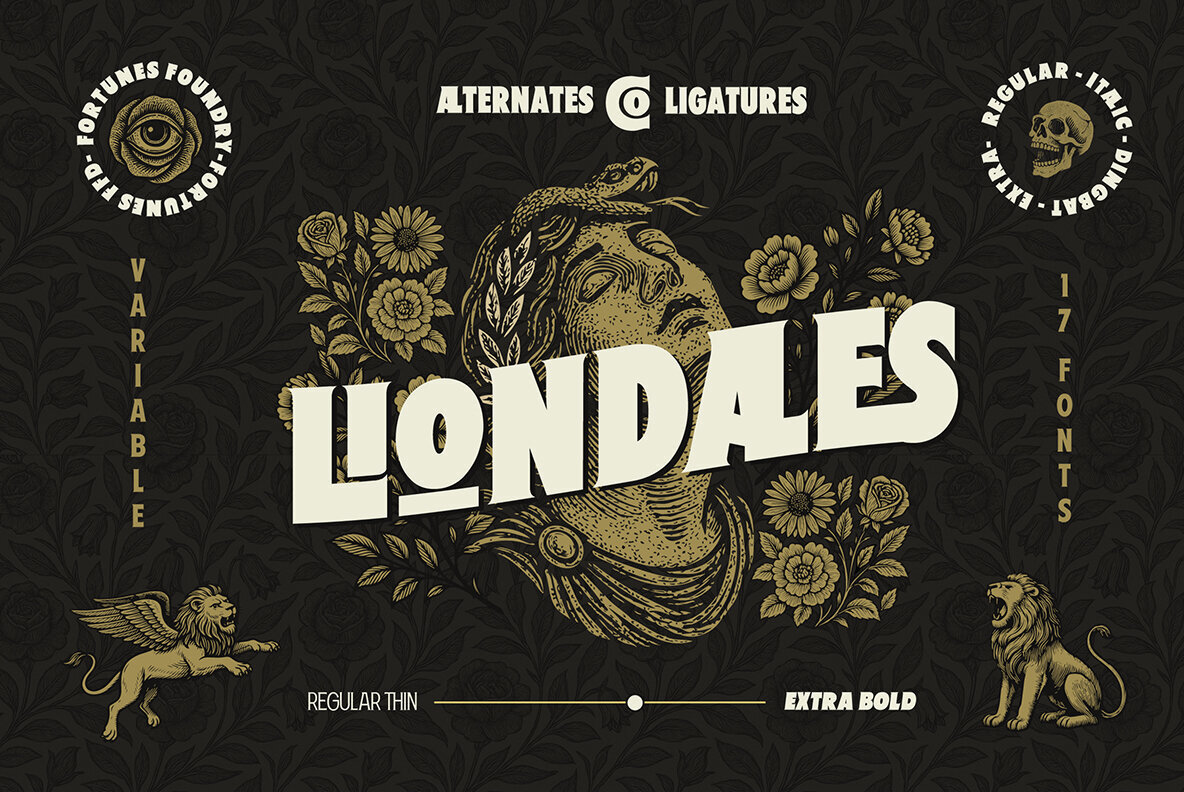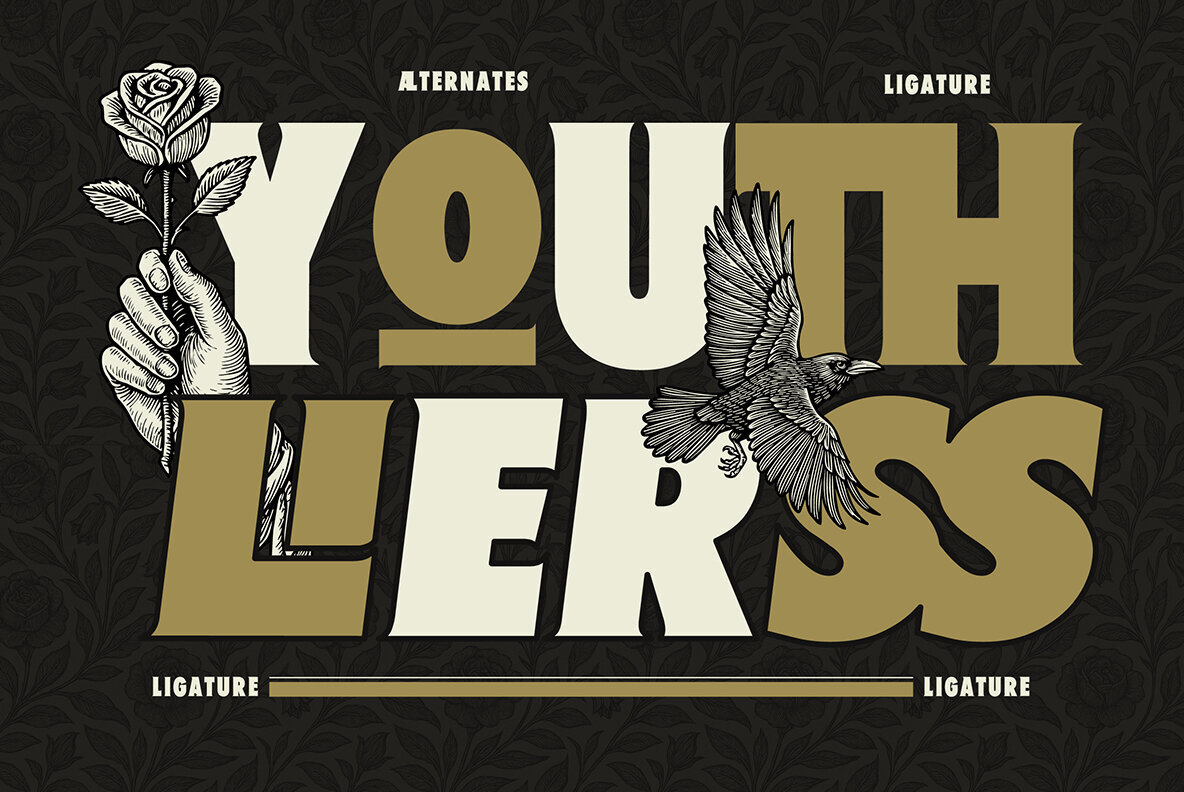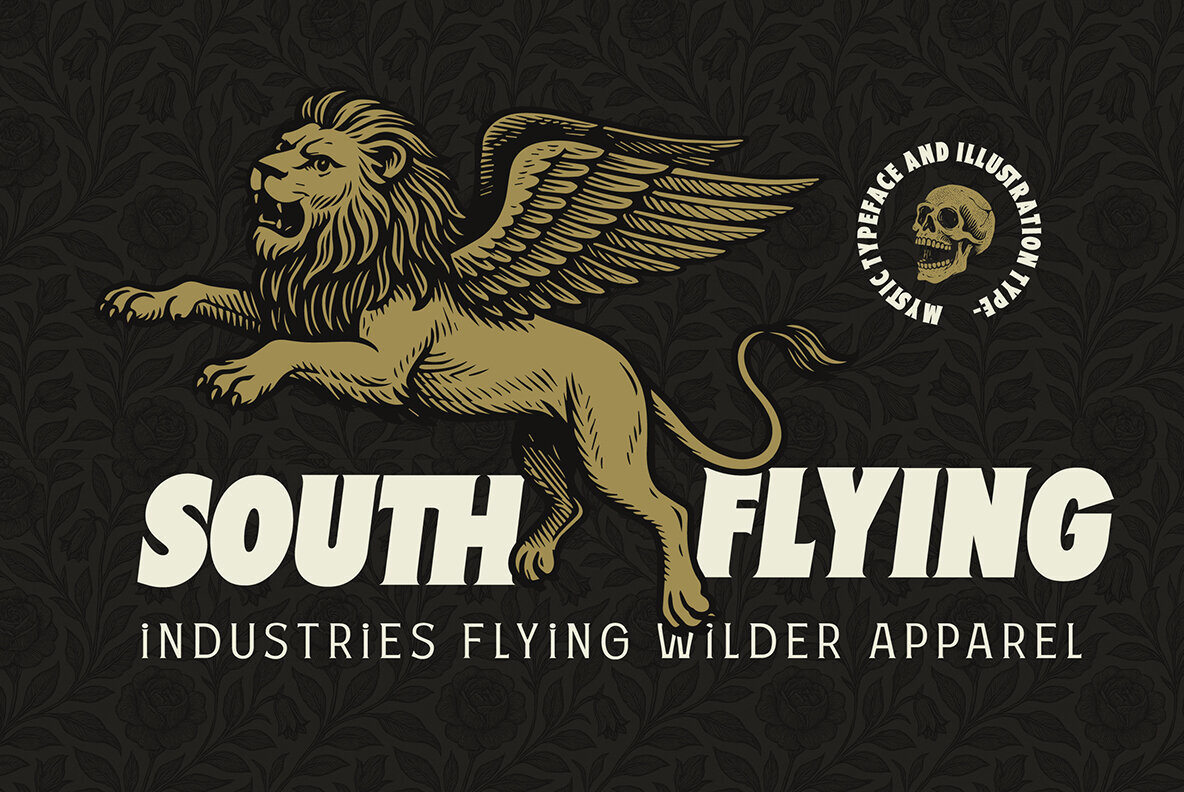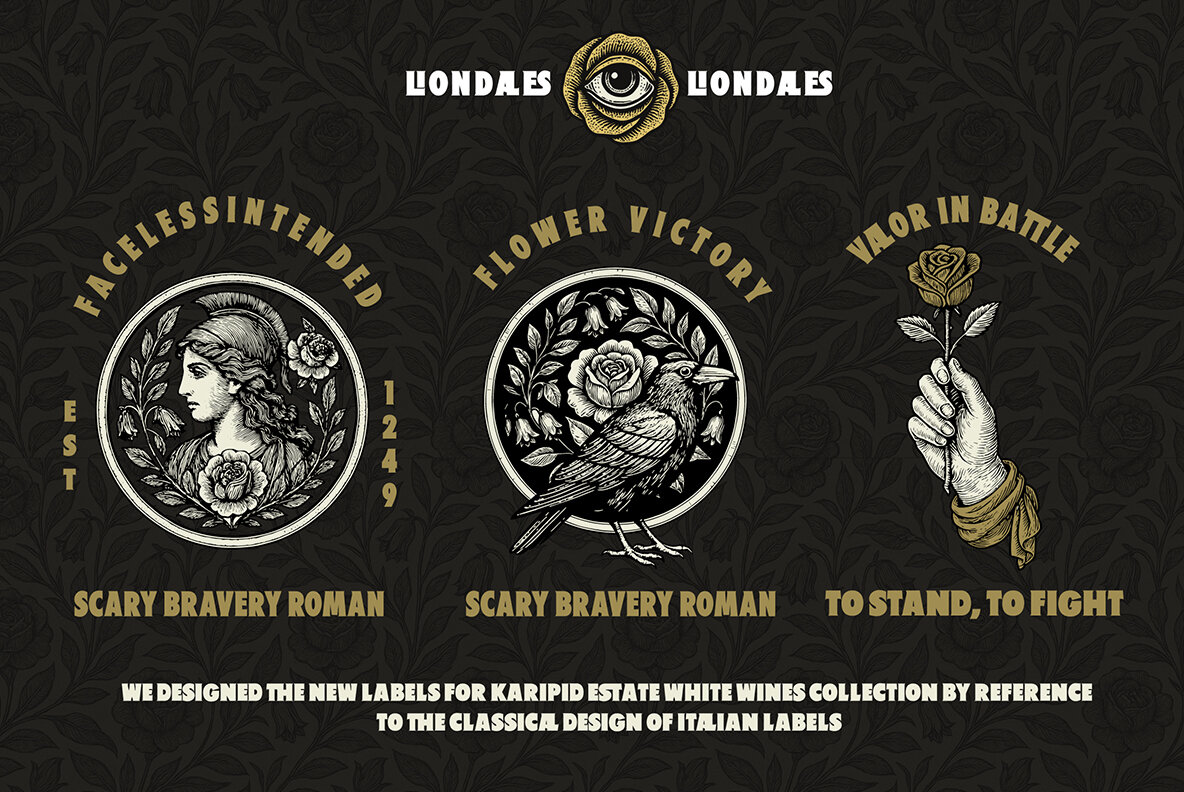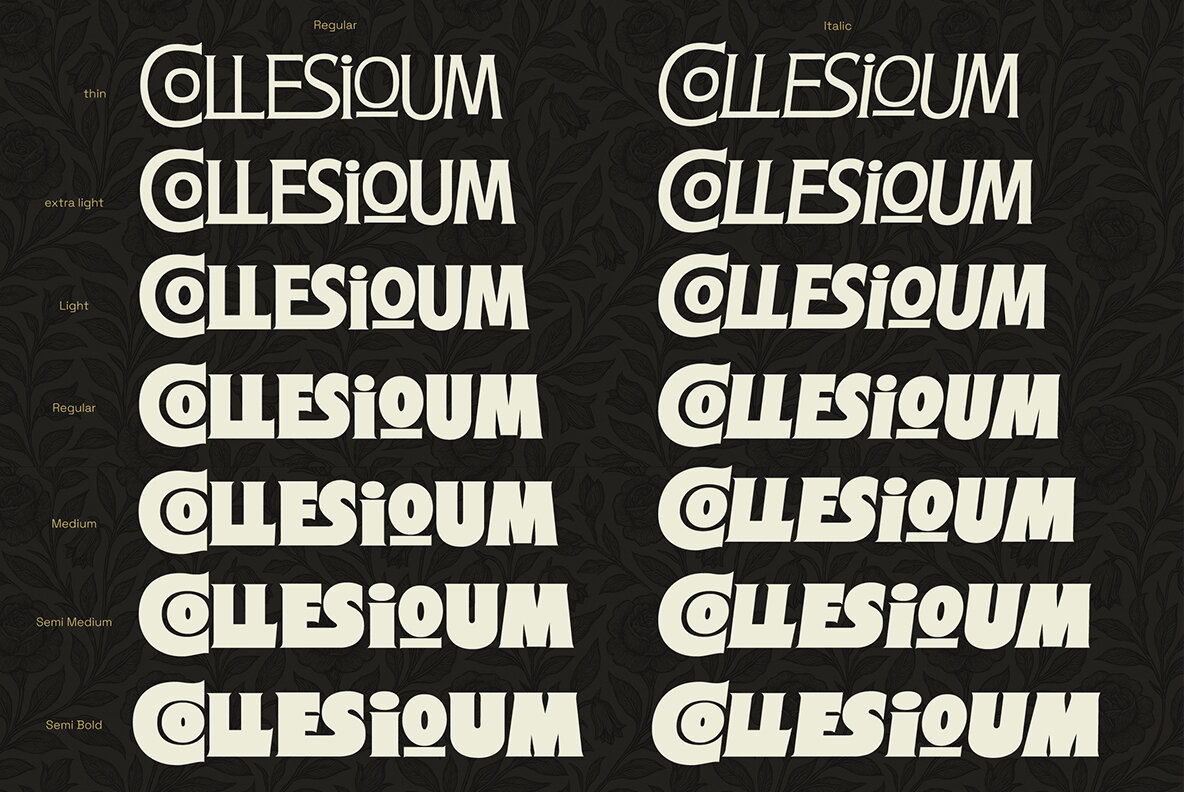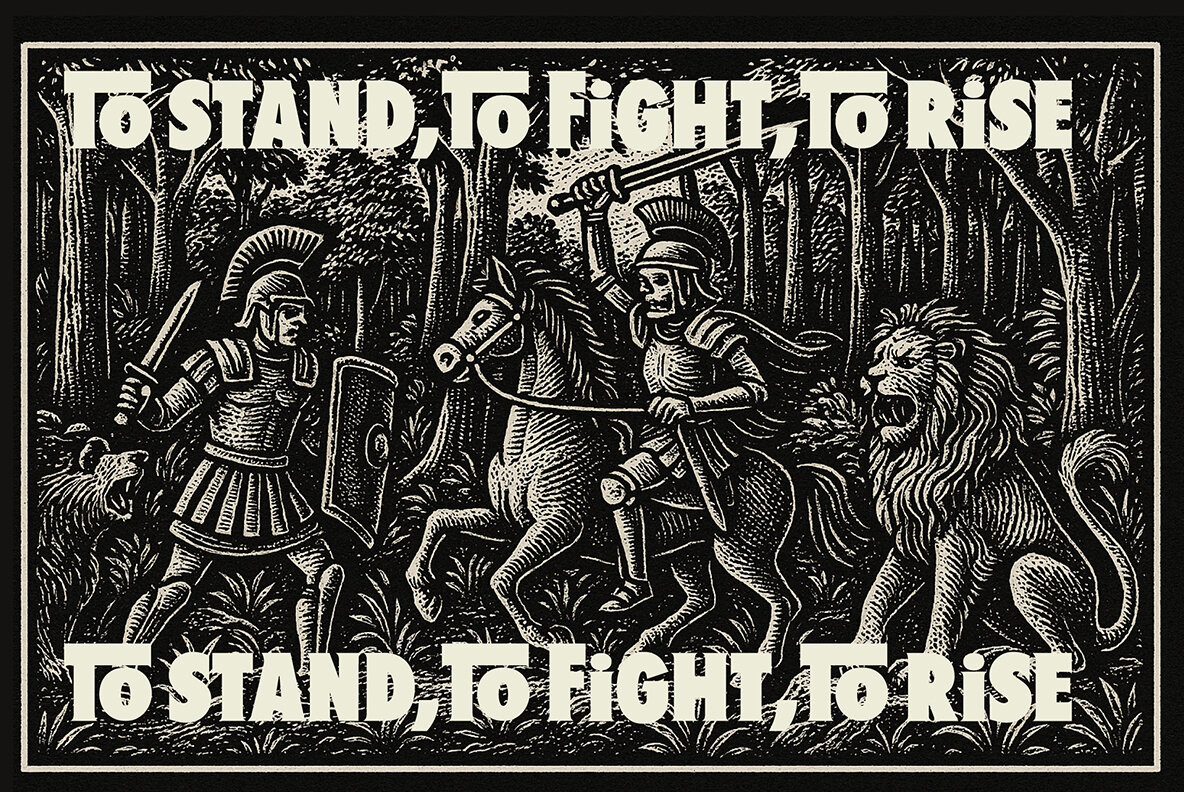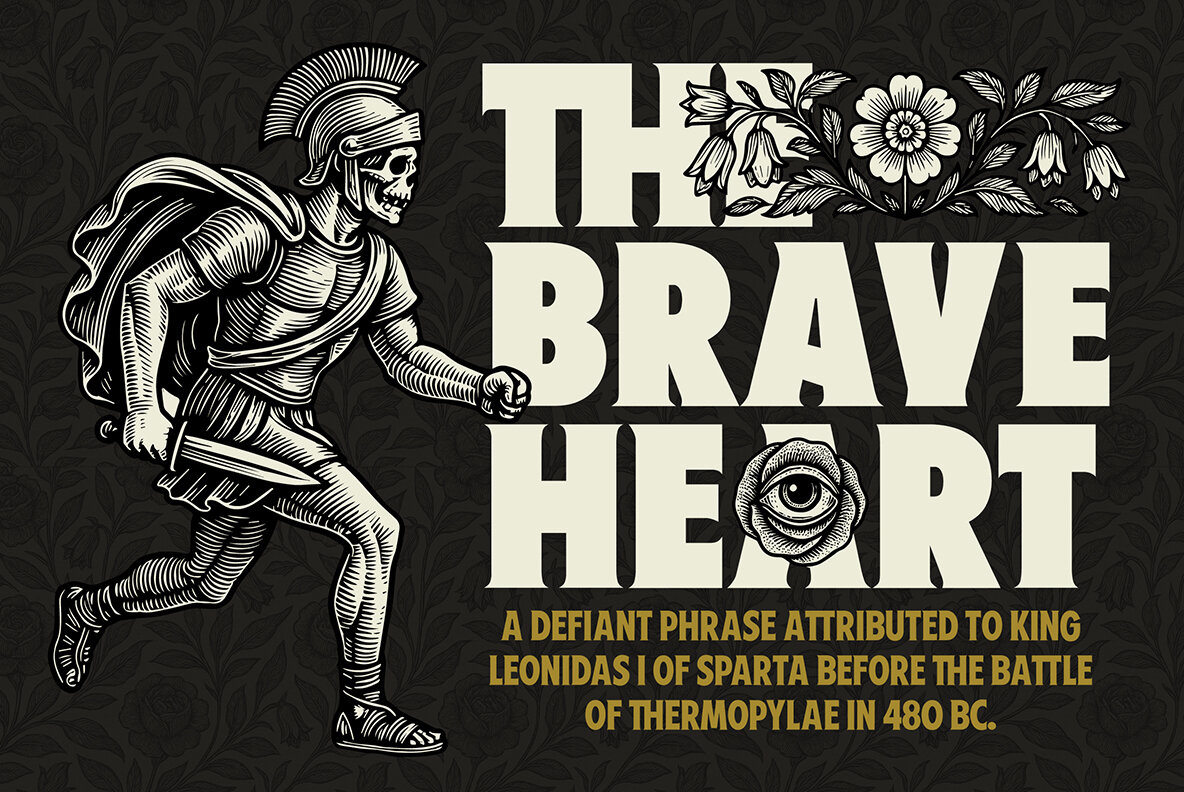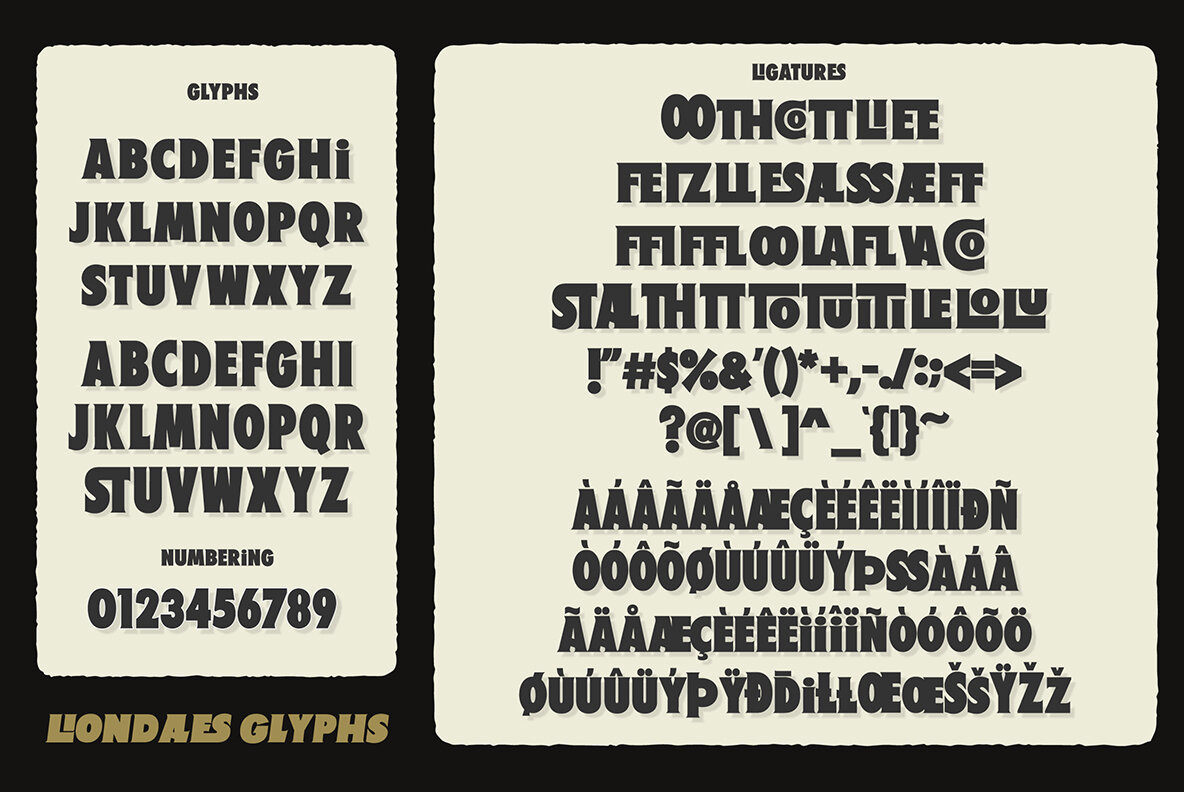
Liondales Font
Enter a realm of grandeur with Liondales, a colossal retro serif typeface that draws inspiration from ancient lore and timeless design. Its monumental letterforms and dramatic curves evoke the spirit of classic empires, heroic tales, and mythical icons. Meticulously crafted to stand tall like stone-carved inscriptions, each glyph carries a sense of weight and majesty—ideal for designs that demand attention and authority. Whether you're working on film titles, historical branding, vintage posters, or bold editorial layouts, Liondaes introduces a regal and theatrical tone to your project. Features: Liondales is more than a font; it's a homage to greatness, designed to command every headline with style.Liondales: Colossal Retro Serif Typeface